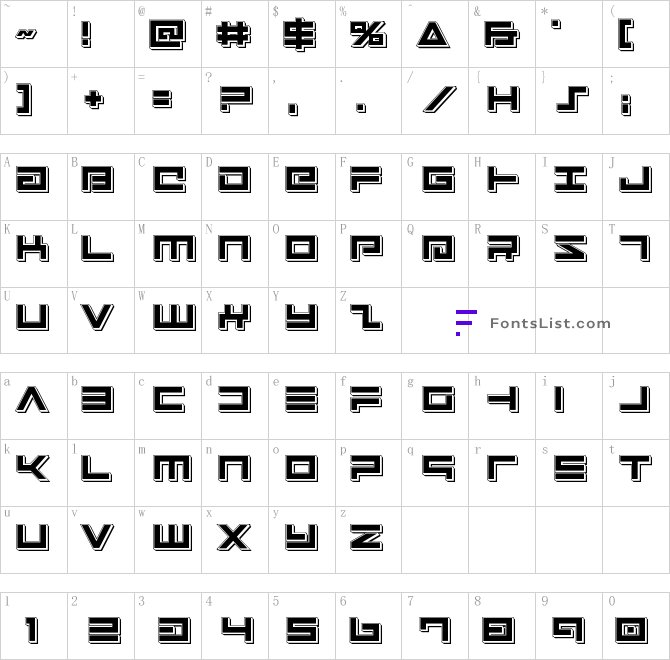
- Font Name:Avenger Punch
Avenger-Punch.ttf is a very beautiful artistic font, Avenger-Punch.ttf is widely used in the design and printing of various books and pictures,Avenger-Punch.ttf has a strong visual impact,Avenger-Punch.ttf is a commonly used font in newspapers, magazines and books, and is used in posters, e-commerce Poster design, store design, logo design, font design and other fields.Avenger-Punch.